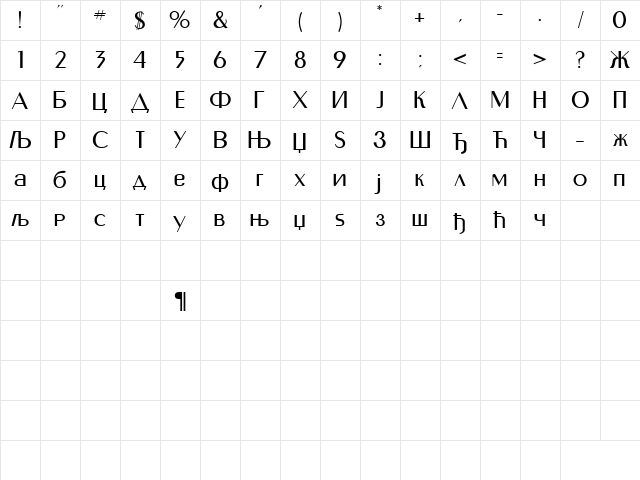
C_Murmansk Regular
Design Context for C_Murmansk
C_Murmansk is a composed and adaptable typeface that performs quietly and consistently across a wide range of design contexts.